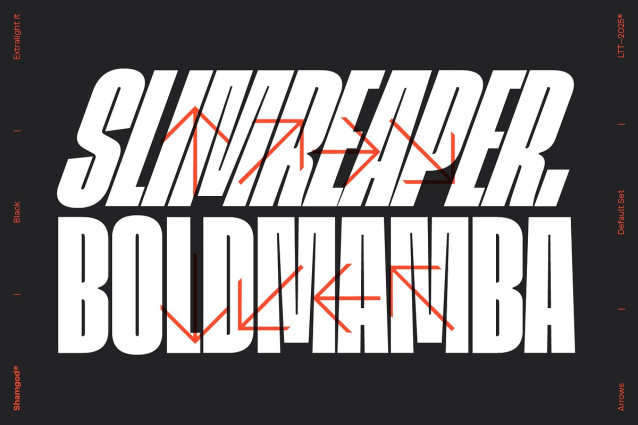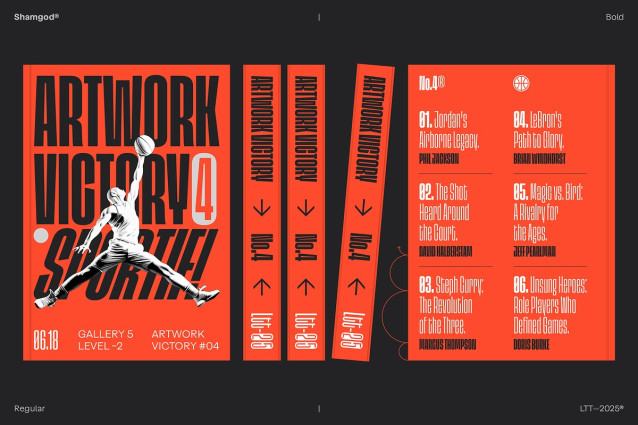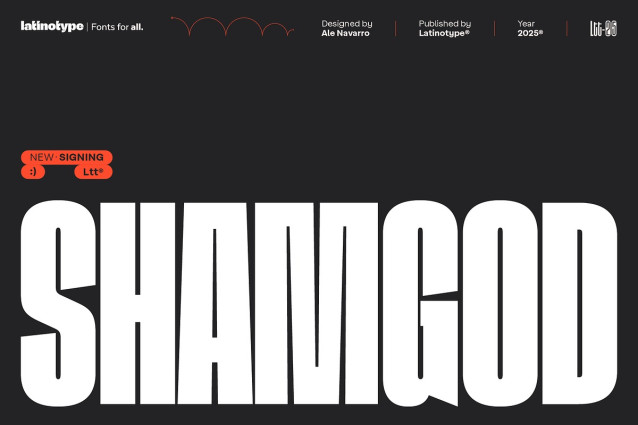
Shamgod Font Family
Shamgod Font Family is a bold, ultra-condensed typeface designed to exude speed and energy. Its grotesque style, sharp diagonal cuts, and compact form capture the raw intensity of sports and the urban culture of the ’90s and 2000s. With its expressive character, Shamgod is perfect for eye-catching headlines, logos, and sports branding. Ideal for streetwear, digital design, and modern branding, it brings a strong, dynamic presence to any project. Whether used in posters, brand identities, or editorial layouts, its striking visual impact makes it a powerful choice for those seeking a bold, contemporary aesthetic.